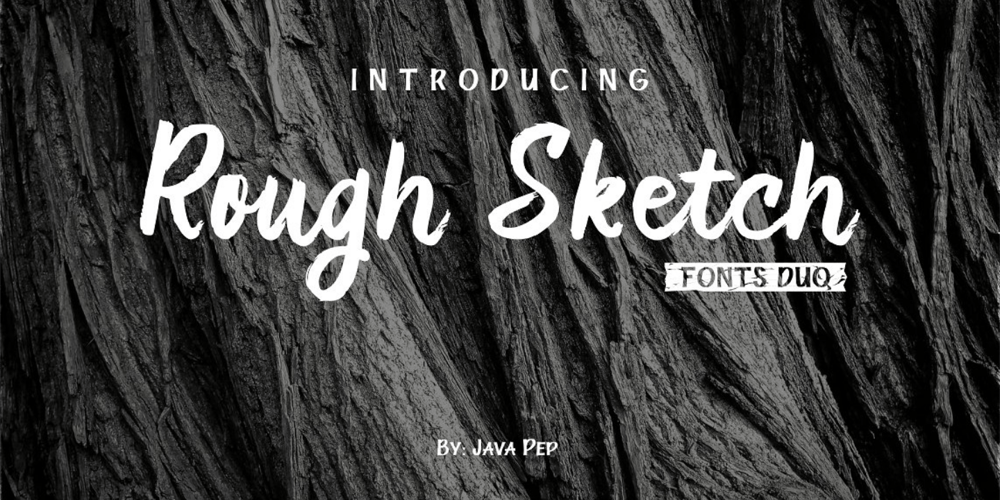
Rough Sketch
Rough  Sketch font
Rough Sketch Font Family was designed by Java Pep and published by Java Pep. Rough Sketch contains 2 styles and family package options. Introducing Rough Sketch fonts duo. This font has character like the name “rough” but yet elegant. Rough Sketch is suitable use for stand out and contradiction themes. This font also elegant for logo, web titles, poster, quote, book or magazine cover, poster and more.Benefit of Rough Sketch Packages Perfect collaboration of Rough Sketch and Roug Duo. You can get two fonts that always well-suited to collaborate in your design or project so this font complete each other. Multilingual Support and ligature set. This font is already for multilingual support for Italian, French, Spain, Danish, Czech, Portuguese, Hungarian, Irish, English, Finnish, Norwegian, Polish etc or contact me if you need to add your language. Ligatures is two or more of letters are joined as a single font like or, sr, pr, and etc. I hope you enjoy using Rough Sketch – fonts duo, if you have anything question about this font please let me know with your comments. Thanks for reading and have a nice day:)